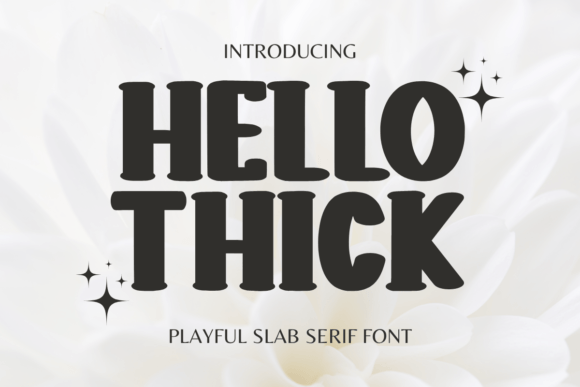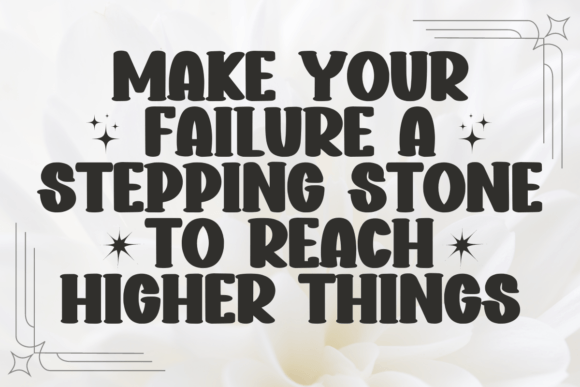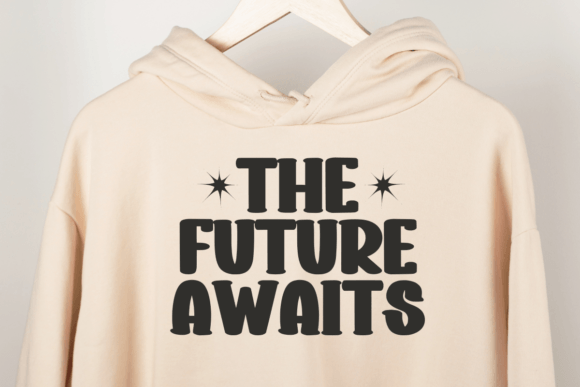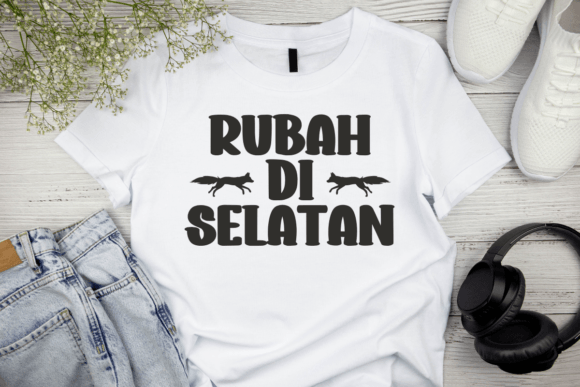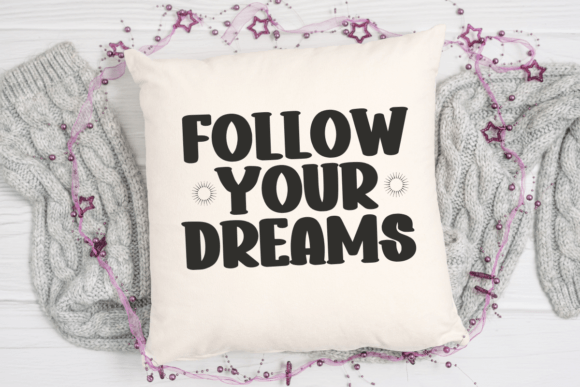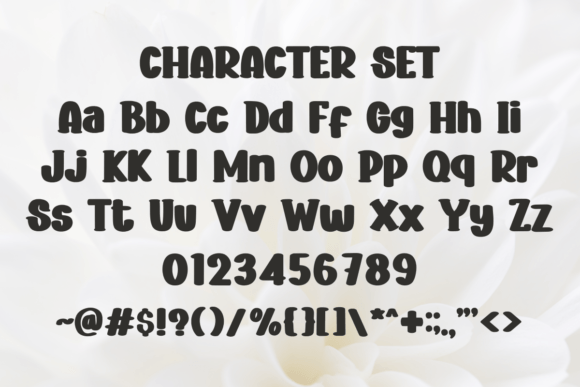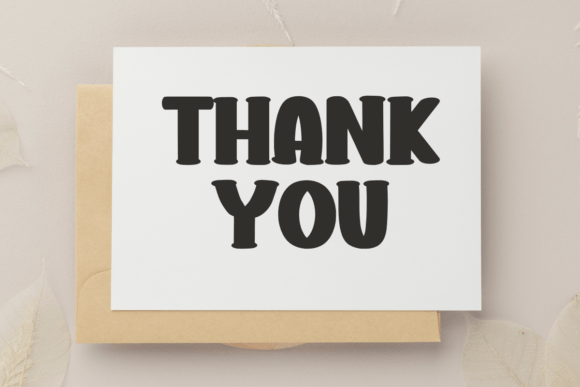
Hello Thick Font
About Hello Thick Font
Hello Thick is a thick and playful slab serif font. The wide characters and chunky serifs make this font ideal for eye-catching designs. You can use it for headlines, t-shirt typography, banners, product labels, and many more.